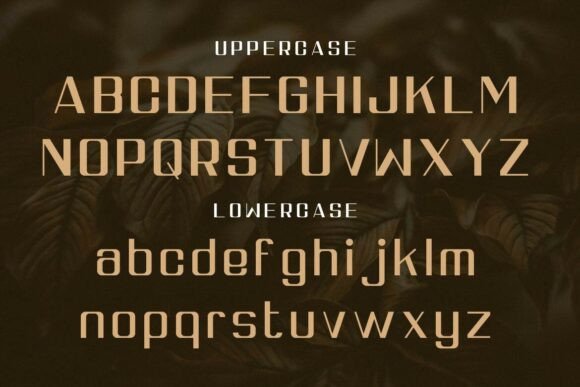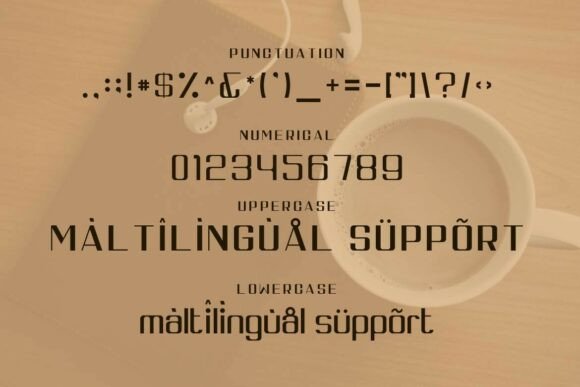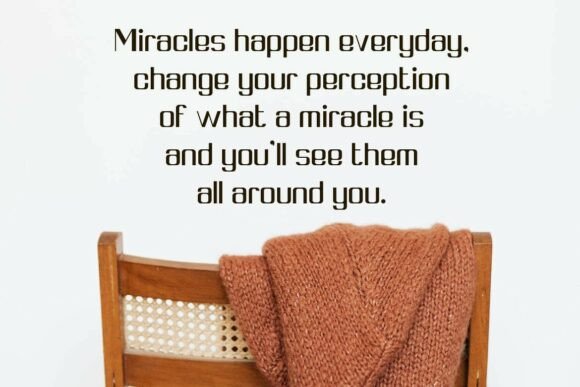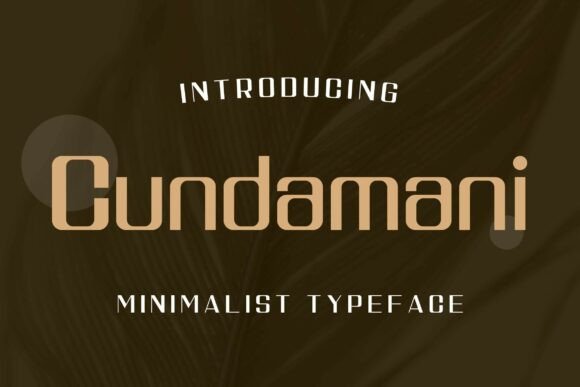
Cundamani Font: Elevate Your Design with a Modern Creative Sans Serif
In the world of typography, a font can make all the difference in capturing the essence of a brand, product, or message. For designers and crafters seeking a unique and modern sans serif font, Cundamani is an exceptional choice. This contemporary font seamlessly blends sleek geometry with an artistic edge, making it perfect for a wide range of applications, from branding and posters to headlines, packaging, and digital content.
The Unique Personality of Cundamani
Cundamani’s design is characterized by subtle quirks, balanced proportions, and clean lines, which come together to create a distinctive personality. This font’s modern creative sans serif style ensures that your typography stands out from the crowd, conveying a sense of freshness and originality. Whether you’re working on a branding project, designing a poster, or crafting engaging digital content, Cundamani’s unique charm is sure to captivate your audience.
Key Features of Cundamani Font
- Sleek Geometry: Cundamani’s geometric design ensures a clean and modern look, making it perfect for contemporary branding and design projects.
- Artistic Edge: The font’s artistic edge adds a touch of creativity and sophistication, setting it apart from more traditional sans serif fonts.
- Subtle Quirks: Cundamani’s subtle quirks add a human touch to the font, making it more approachable and engaging.
- Balanced Proportions: The font’s balanced proportions ensure that text remains clear and readable, even at smaller sizes.
- Clean Lines: Cundamani’s clean lines make it perfect for use in digital content, where clarity and legibility are essential.
Applications for Cundamani Font
Cundamani’s versatility makes it an excellent choice for a wide range of design projects, including:
- Branding: Use Cundamani to create a unique and memorable brand identity that stands out from the competition.
- Posters: Add a touch of modern sophistication to your posters with Cundamani’s clean and artistic design.
- Headlines: Use Cundamani to create attention-grabbing headlines that demand attention.
- Packaging: Elevate your packaging design with Cundamani’s unique and modern style.
- Digital Content: Use Cundamani to add a touch of creativity and sophistication to your digital content, from social media graphics to website headers.
Why Choose Cundamani Font?
With so many fonts available, why choose Cundamani? Here are just a few reasons why designers and crafters are falling in love with this modern creative sans serif font:
- Unique Design: Cundamani’s distinctive design ensures that your typography stands out from the crowd.
- Versatility: The font’s versatility makes it perfect for a wide range of design projects and applications.
- Legibility: Cundamani’s clean lines and balanced proportions ensure that text remains clear and readable, even at smaller sizes.
- Modern Style: The font’s modern style ensures that your design looks fresh and contemporary.
In conclusion, Cundamani font is an exceptional choice for designers and crafters seeking a modern creative sans serif font. With its unique personality, sleek geometry, artistic edge, and versatile applications, Cundamani is perfect for a wide range of design projects. Whether you’re working on branding, posters, headlines, packaging, or digital content, Cundamani is sure to elevate your design and capture your audience’s attention.